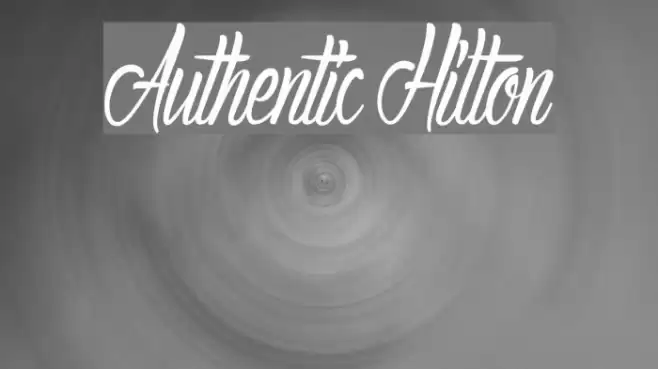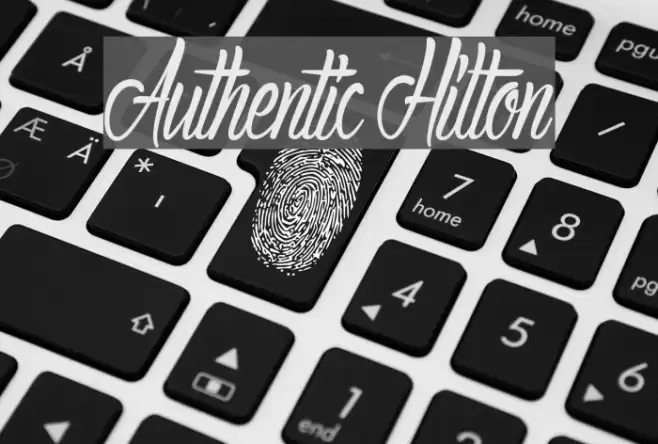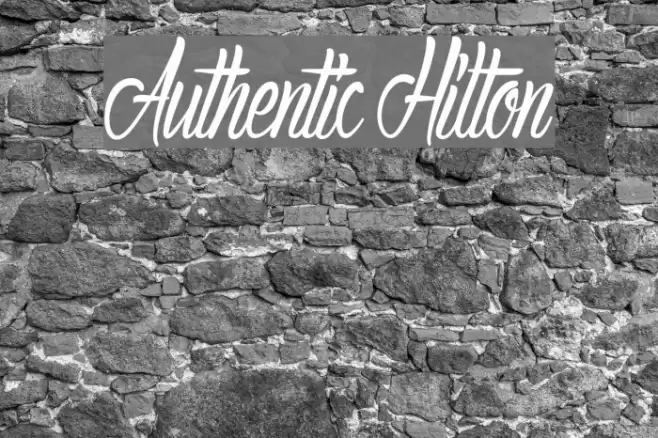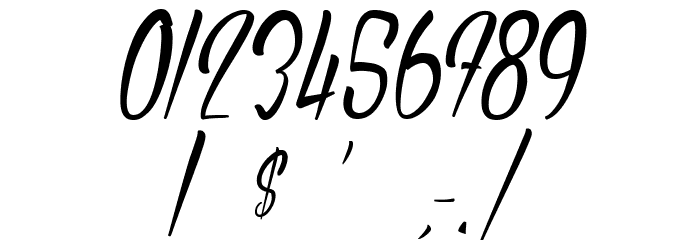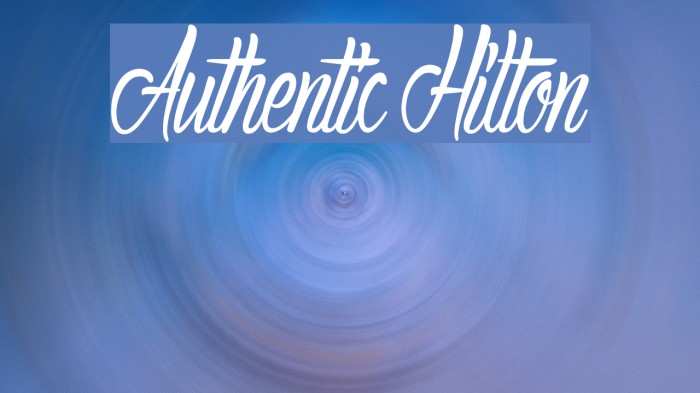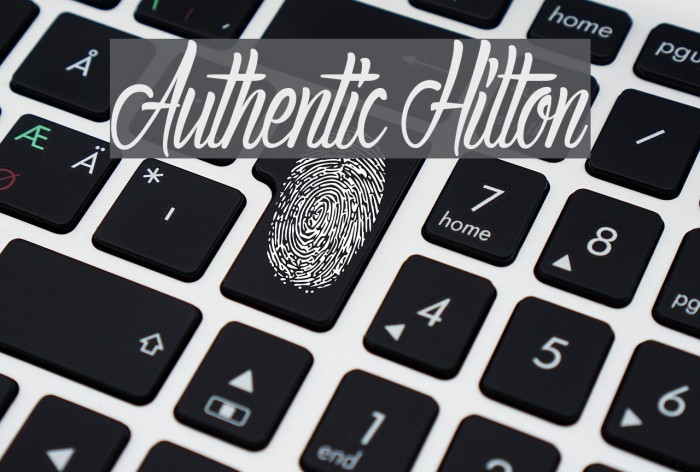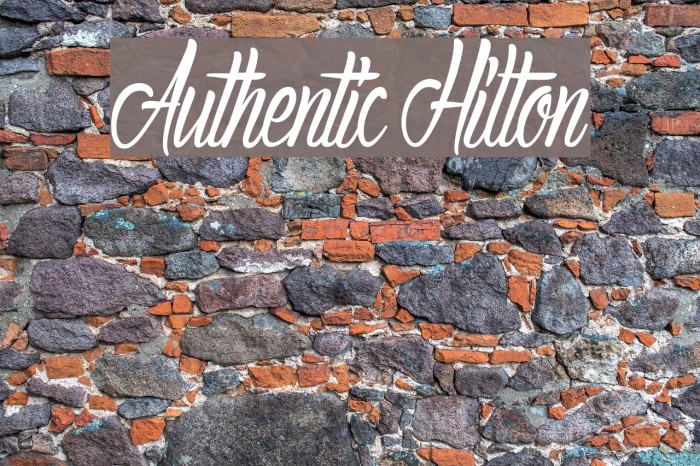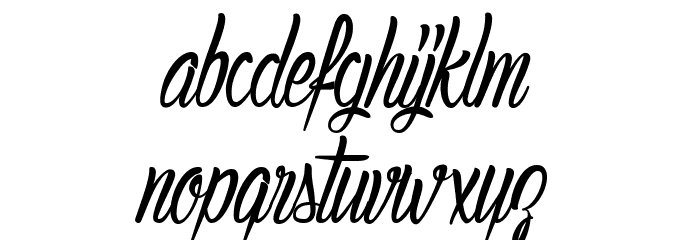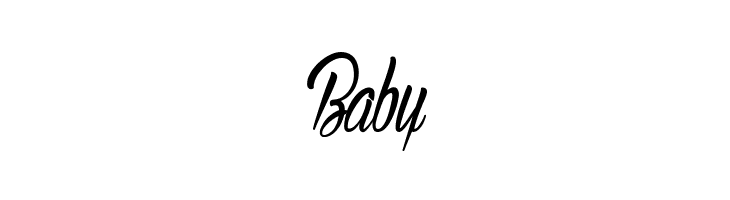
Authentic Hilton Font
Authentic Hilton Description
This font features a dynamic and flowing script style, characterized by its elegant and cursive letterforms. The uppercase letters are bold and sweeping, with a sense of movement that adds a touch of sophistication. The lowercase letters maintain a consistent flow, complementing the uppercase with their graceful curves. The numerals are stylish and maintain the script's fluidity, making them suitable for decorative purposes. The special characters are integrated seamlessly, enhancing the font's versatility. Overall, this font exudes a sense of elegance and charm, making it ideal for projects that require a personal and artistic touch.
A dynamic and elegant script font with flowing, cursive letterforms from Uncategorized fonts.
- Proposed Projects: Ideal for wedding invitations, greeting cards, branding, and logo design.
- Overall Style: Elegant
- Use Case: Logos, Invitations, Decorative text